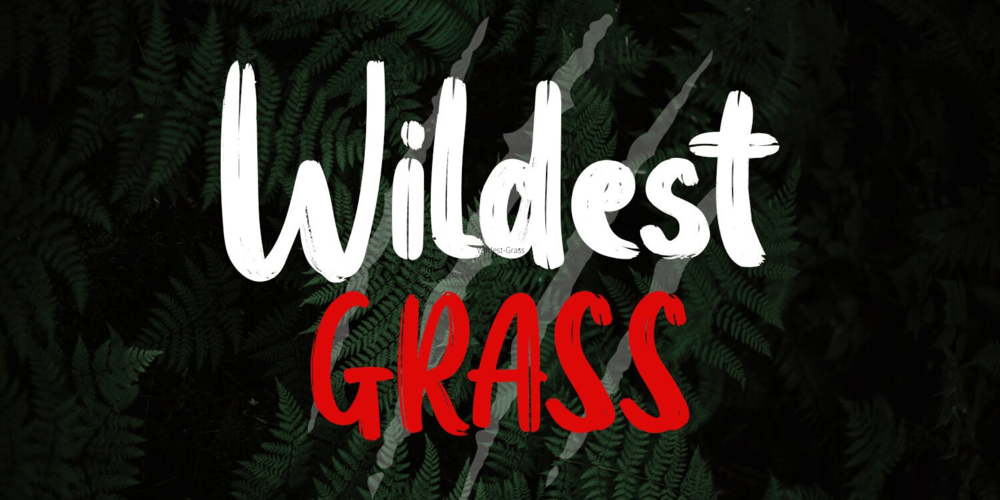
Wildest Grass Font Family was designed by Irpan Maulana and published by Sabrcreative. Wildest Grass contains 1 styles and family package options. Elevate your design projects with the timeless charm of Kastangel Font, an exquisite handwriting signature typeface. Crafted with care, this font embodies the fluidity of human penmanship, adding a touch of sophistication to your creations. With its captivating uppercase characters, numbers, punctuations, and multilingual support, Kastangel Font offers versatility for various design applications.